20+ Top Heavy Metal Fonts: Free & Paid Options for Bands, Logos & More
Heavy metal fonts are more than just letters on a page; they’re a visual representation of the music’s energy, attitude, and power. The right font can make all the difference in creating a strong and impactful design, whether it’s for a band logo, album cover, or merchandise.
Think of iconic heavy metal bands like Metallica, Iron Maiden, and Slayer. Their logos are instantly recognizable, and a big part of that recognition comes from the bold, aggressive fonts used. These fonts capture the essence of the music: loud, rebellious, and in your face.
But with so many different heavy metal fonts available, it can be hard to know where to start. That’s why we’ve compiled this list of the best heavy metal fonts out there, covering a range of styles from classic to modern, and from death metal to gothic metal. Whether you’re a seasoned designer or just starting out, you’ll find the perfect font to capture the spirit of your project.
So, let’s dive in and explore the world of heavy metal fonts, where typography meets the mosh pit!
New Rocker Font
The New Rocker font is a classic heavy metal font that embodies the spirit of rock and roll. Its bold, jagged letters are reminiscent of iconic band logos from the 1980s, making it a perfect choice for projects that need a vintage feel. This font is highly versatile and can be used for anything from band logos and album covers to posters and flyers. Its strong visual impact ensures that your designs will stand out from the crowd.
Durendal and Oliphant Font
Durendal and Oliphant is a font duo that offers a unique combination of elegance and aggression. The Durendal font is a bold, gothic-inspired typeface with sharp serifs, while the Oliphant font is a more flowing script font. Together, they create a dynamic contrast that is perfect for projects that need a touch of both sophistication and rebellion.
Viper Fangs Font
Just as the name suggests, the Viper Fangs font is a sharp and aggressive typeface that is perfect for death metal or black metal projects. Its pointed edges and dramatic angles give it a menacing look, while its bold weight ensures that it will command attention. This font is ideal for album covers, band logos, or any design that needs a dark and intense feel.
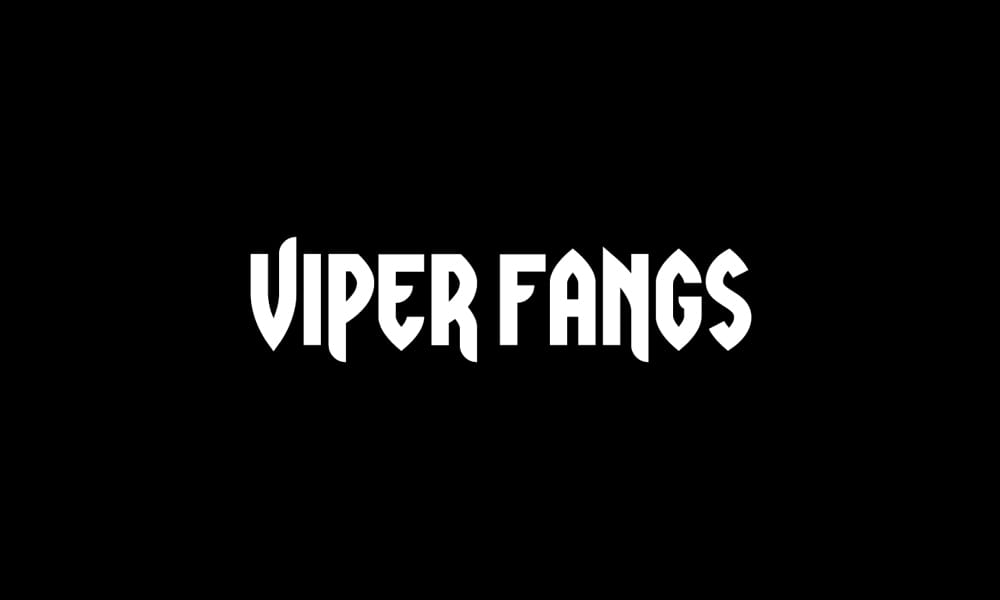
DragonForce Font
Inspired by the power metal band DragonForce, this font is characterized by its speed and energy. Its sharp, angular letters seem to be in constant motion, making it a perfect choice for designs that need to convey a sense of power and excitement. The DragonForce font is particularly well-suited for band logos, album covers, and posters.
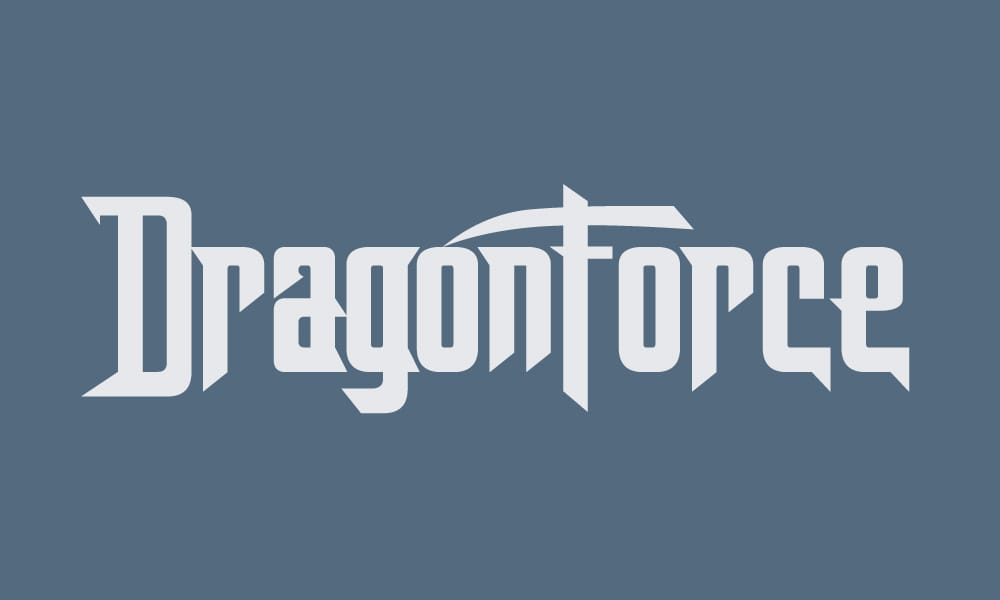
Free Metal Curve Font
The Free Metal Curve font is a versatile heavy metal font that can be used for a variety of projects. Its bold, rounded letters have a classic feel, while its slightly distorted shape gives it a unique edge. This font is a great choice for band logos, album covers, or any design that needs a strong and memorable look.
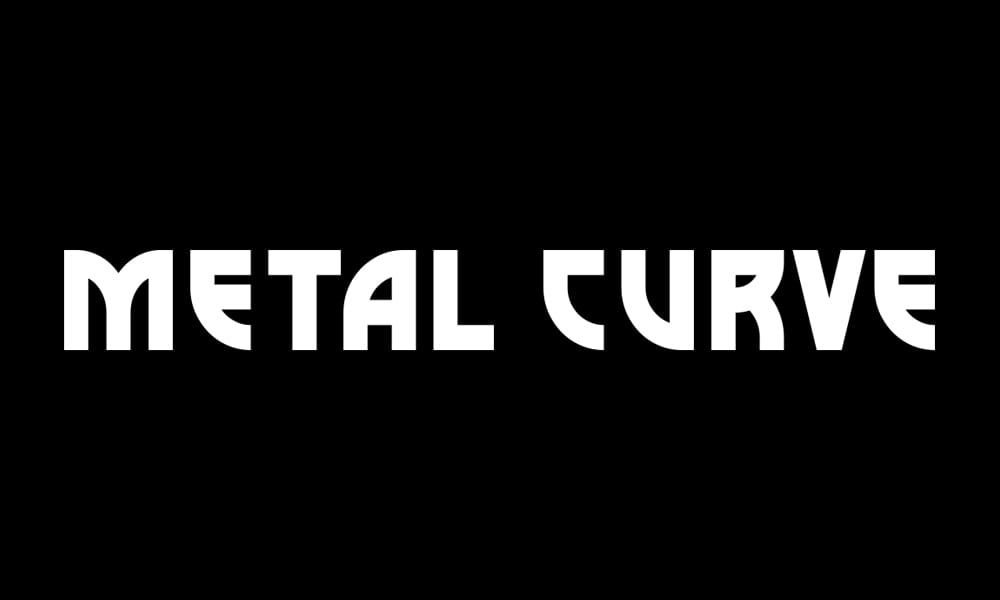
Vindica Rebel Brush Font
Vindica Rebel is a brush script font that brings a touch of grunge to the heavy metal scene. Its rough, hand-drawn letters have a rebellious feel, making it a perfect choice for projects that need a raw and authentic look. This font is particularly well-suited for band logos, merchandise, and posters.
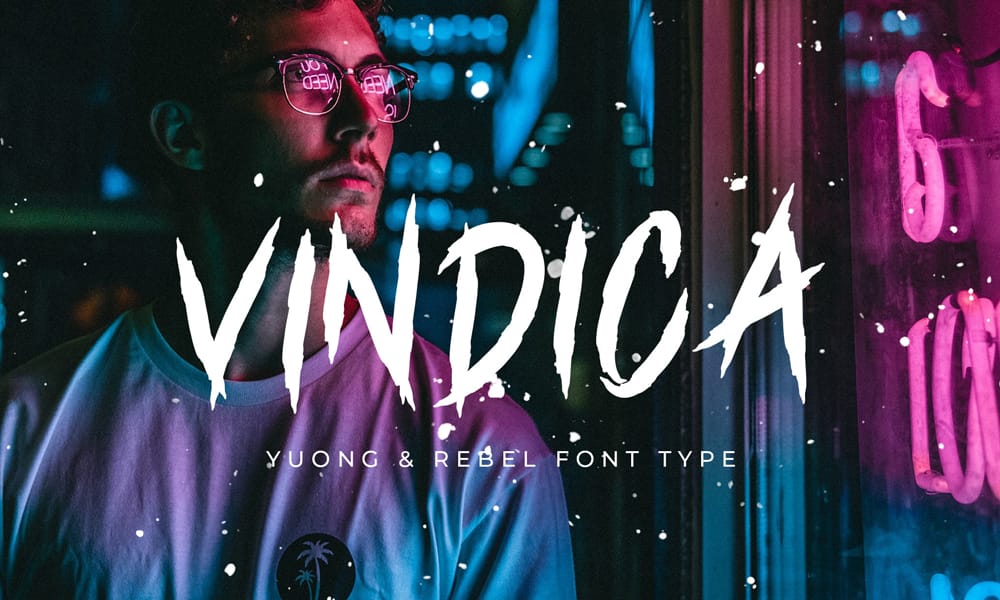
Freeday Font
Freeday is a bold and impactful heavy metal font that is sure to make a statement. Its thick, blocky letters have a strong visual presence, while its sharp edges give it an aggressive feel. This font is ideal for band logos, album covers, or any design that needs to convey a sense of power and intensity.
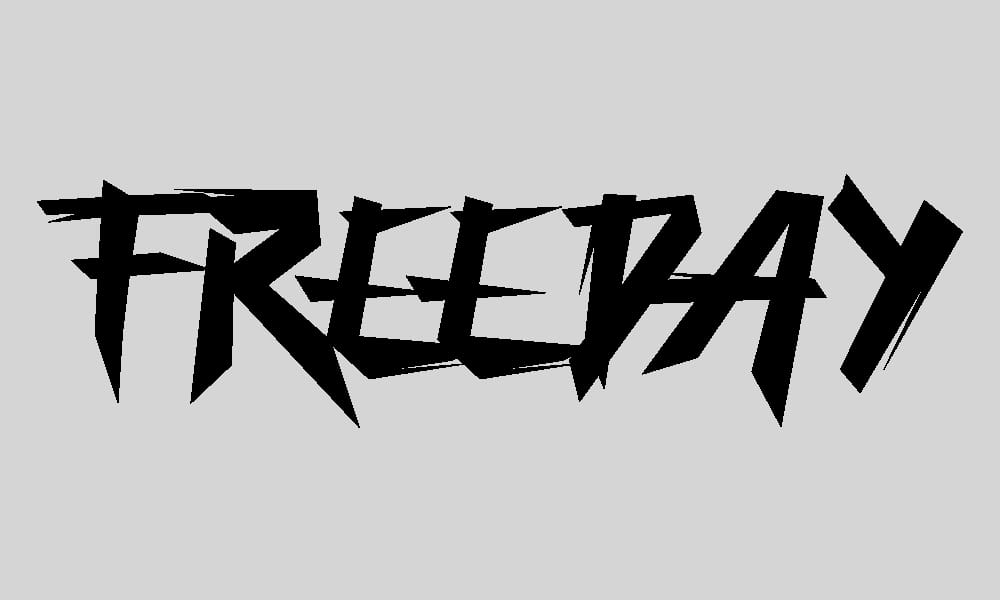
Metal Lord Font
The Metal Lord font is a classic heavy metal font that is perfect for projects that need a traditional look. Its bold, angular letters are reminiscent of iconic band logos from the 1980s and 1990s, making it a great choice for designs that need a vintage feel. This font is highly versatile and can be used for anything from band logos and album covers to posters and flyers.
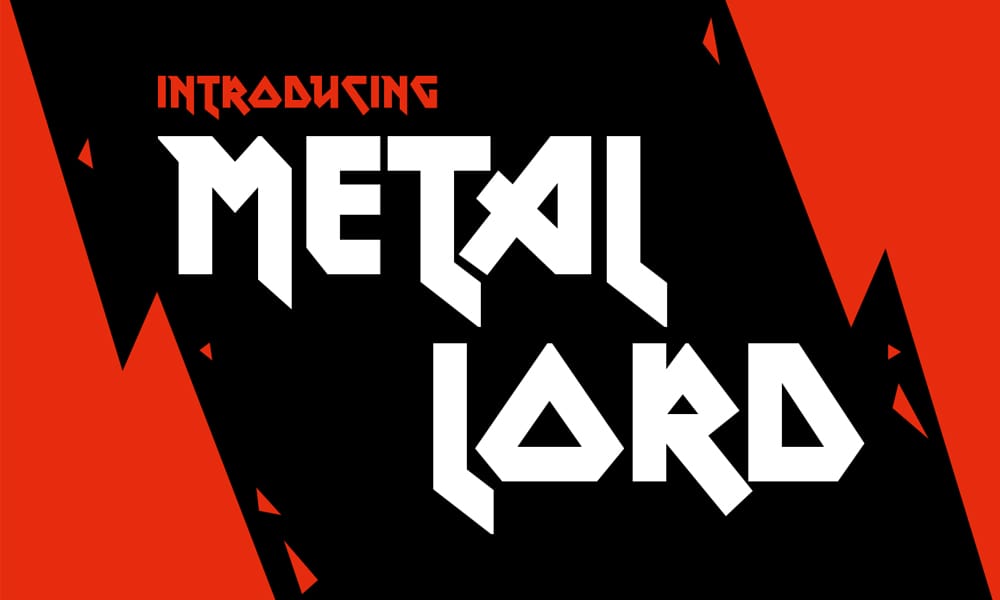
Squealer Font
Squealer is a unique heavy metal font that has a distressed, almost broken look. Its jagged edges and irregular shapes give it a chaotic feel, making it a perfect choice for projects that need a raw and aggressive look. This font is particularly well-suited for album covers, band logos, and posters.
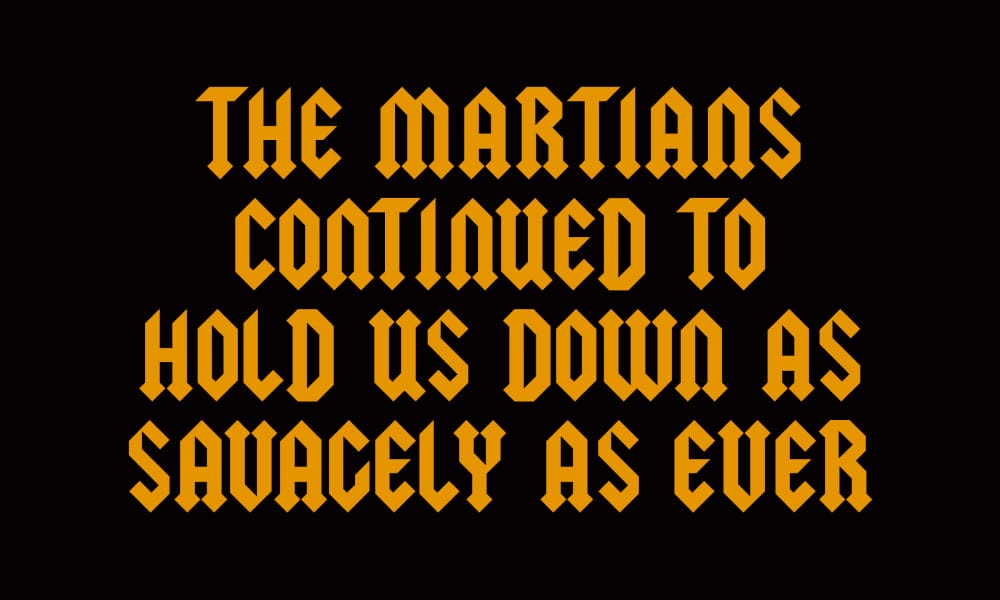
Grimoire Of Death Font
The Grimoire Of Death font is a dark and mysterious typeface that is perfect for black metal or gothic metal projects. Its sharp, angular letters have a sinister feel, while its intricate details give it an air of ancient magic. This font is ideal for album covers, band logos, or any design that needs a dark and atmospheric feel.
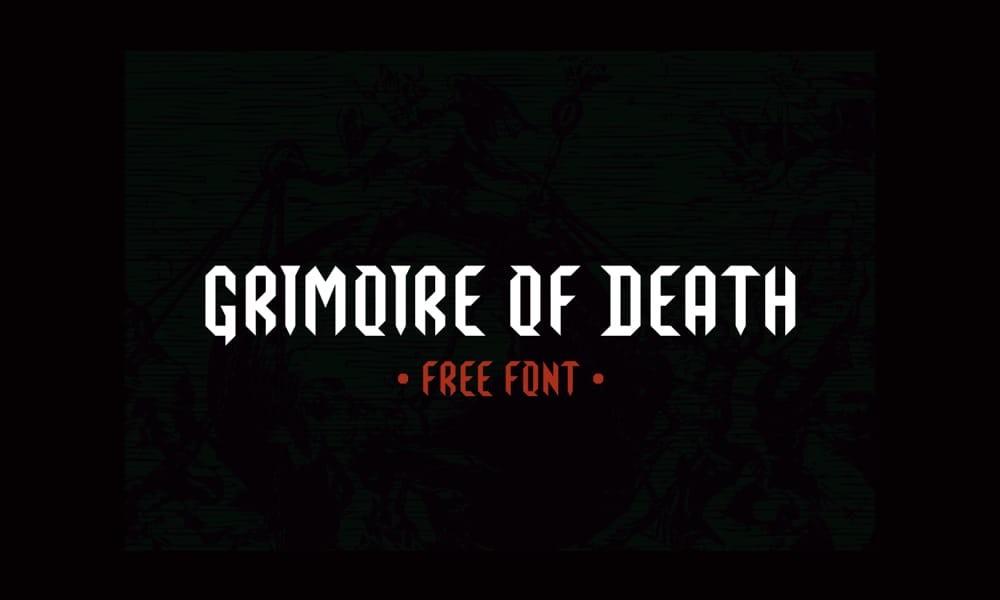
October Crow
October Crow is a bold and aggressive heavy metal font that is sure to capture attention. Its sharp, angular letters have a menacing look, while its thick strokes give it a powerful feel. This font is particularly well-suited for band logos, album covers, and posters.
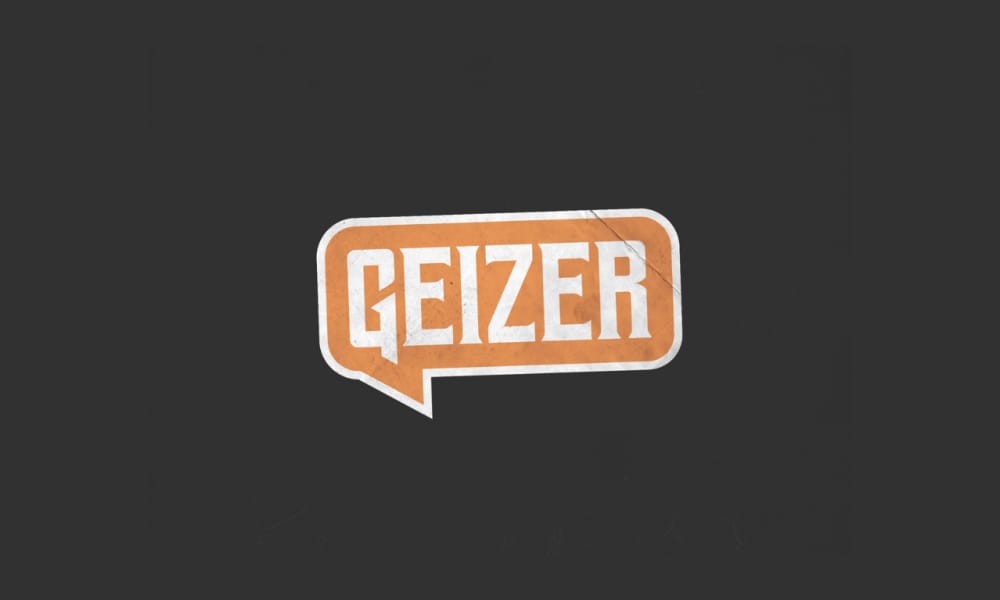
Scarbes Font
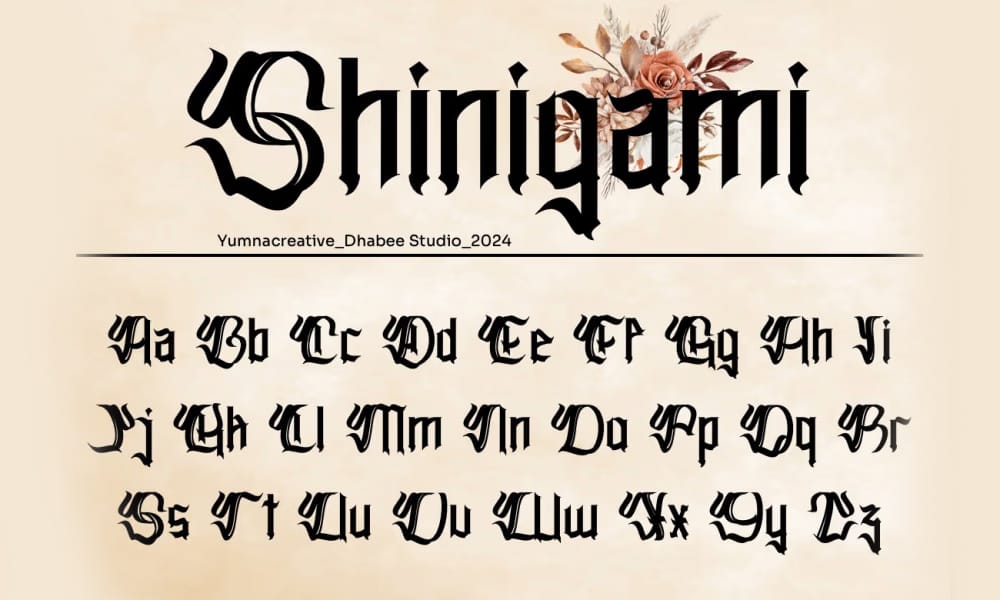
Goatham Death Metal Font
Pyrite
Judas Font
Pure Evil 2 Font
Horroroid Font
Needleteeth
Long Shot
Shadow of Xizor
Pirata One
AmazDooM
Here are Some Premium Options to Consider
Dumber – Heavy Metal Font
Necrotic – Heavy Metal Font
Dezzy – Heavy Metal Font
Lorque Black Metal Display Font
Metal Soup Blackletter Typeface
Scratch Metal Font